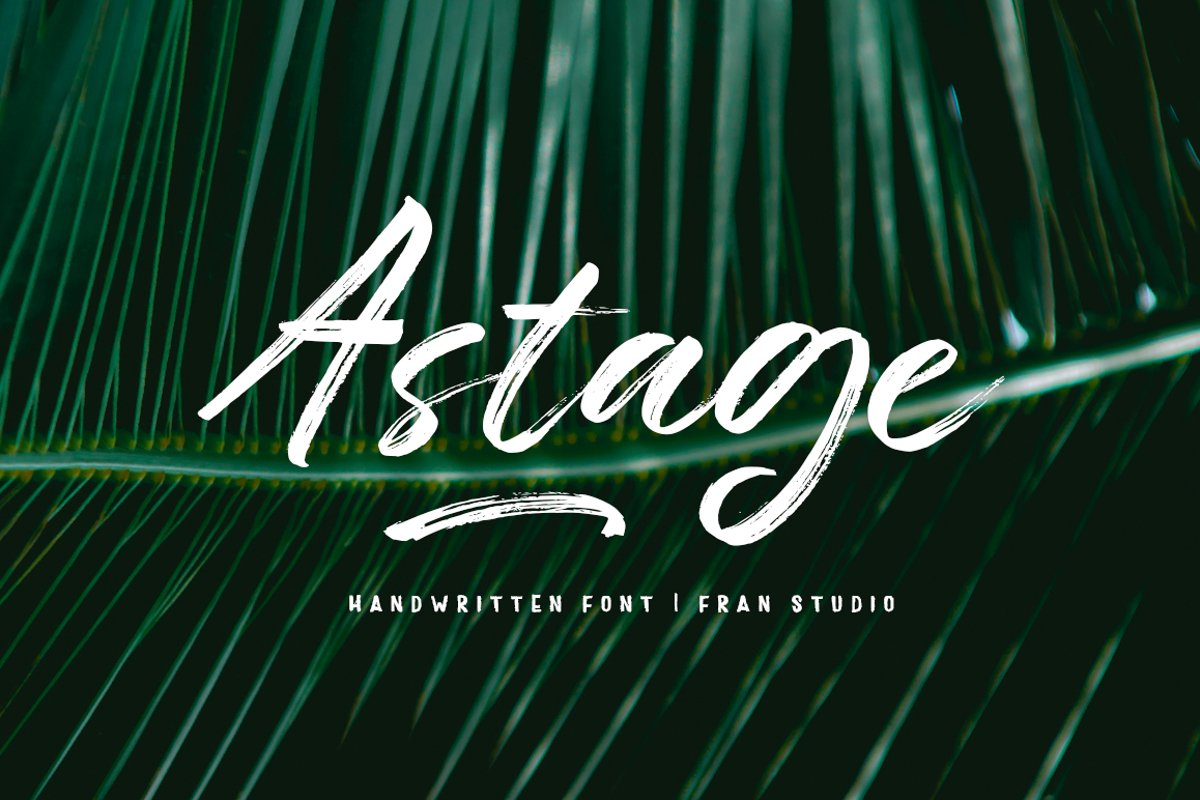
Astage
Astage Underlines
Astage
Astage is a very interesting new brush font. This font family is perfect for branding projects, logos, product packaging, posters, invitations, greeting cards, news, blogs, and more.
Astage offers OpenType features, several ligatures and swashes, initial and terminal letters, and international support for most Western languages.